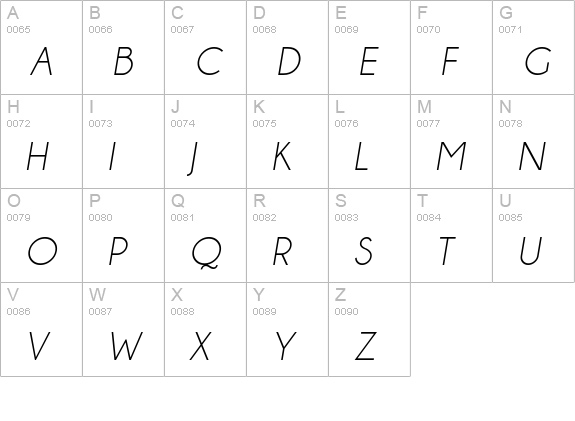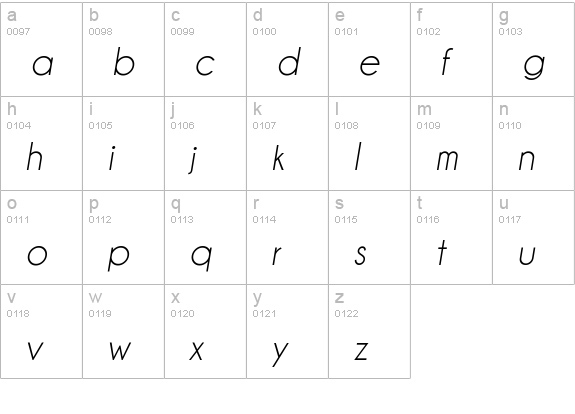
Champagne & Limousines Italic Font Details
Champagne & Limousines Italic is a distinctive, italic variant in the Champagne typeface family \xE2\x80\x94 well suited to design and typography projects.
Champagne & Limousines Italic font exudes elegance and sophistication with its sleek and refined design. This font is the perfect choice for creating a luxurious and upscale atmosphere in your designs. The italic style adds a touch of flair and elegance, making it ideal for invitations, event posters, branding materials, and more. With Champagne & Limousines Italic font, you can effortlessly create stunning and memorable designs that leave a lasting impression. The clean and modern lines of this font create a sense of style and exclusivity, making it the perfect choice for high-end projects. One of the best features of Champagne & Limousines Italic font is that it is available for free download at FontsMarket.com. This means that you can easily access and use this beautiful font in your projects without any cost. Whether you're a professional designer or a hobbyist, this free font is a valuable asset to have in your collection. Designed with attention to detail and precision, Champagne & Limousines Italic font offers a wide range of characters and glyphs, allowing you to create unique and personalized designs. The versatility of this font makes it suitable for a variety of projects, from elegant wedding invitations to modern business cards. In addition to its stunning design and free availability, Champagne & Limousines Italic font is also easy to use. It is compatible with various design software and can be easily installed on both Windows and Mac operating systems. This user-friendly font ensures that you can start using it immediately, without any technical difficulties. So, if you're looking for a font that combines elegance, sophistication, and a touch of luxury, look no further than Champagne & Limousines Italic font. Download it for free at FontsMarket.com and elevate your designs to new heights.